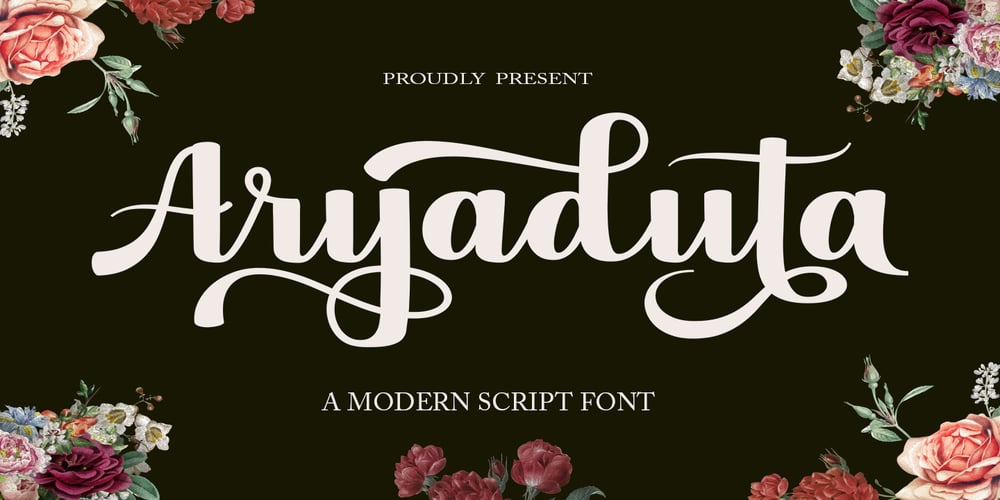
Aryaduta Font Family was designed by Has Rizal and published by Hrz Studio. Aryaduta contains 1 styles and family package options. Aryaduta is a romantic and gorgeous looking typeface. It can be used for various purposes, such as logos, wedding invitation, t-shirt, letterhead, signage, news, posters, badges and more. This font is PUA encoded which means you can access all of the glyphs and swashes with ease!